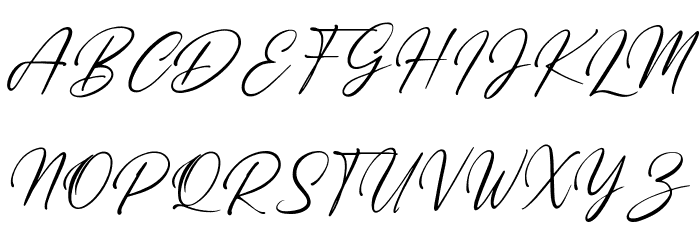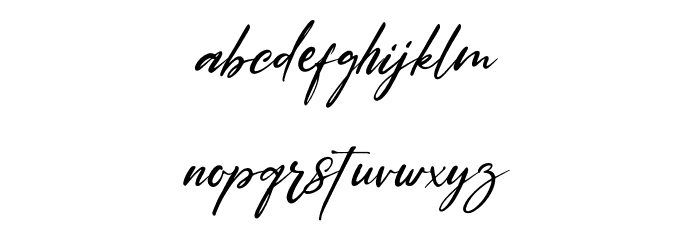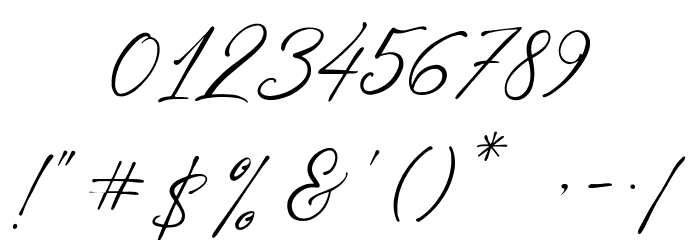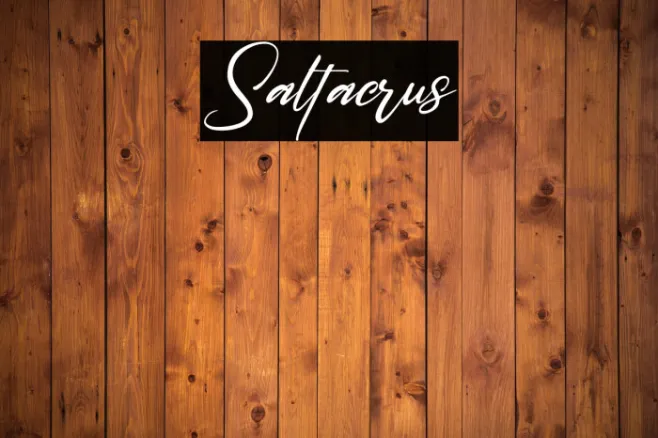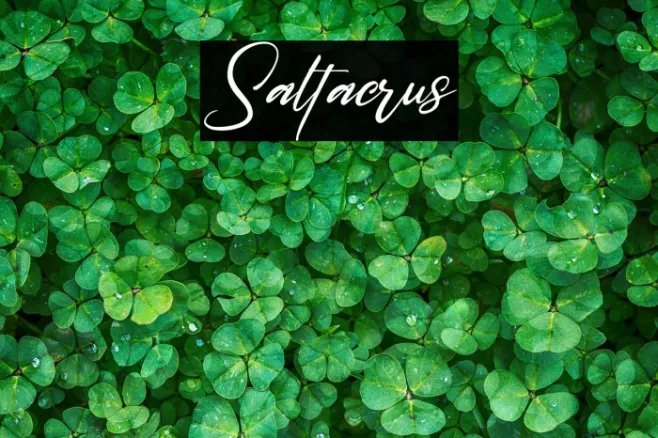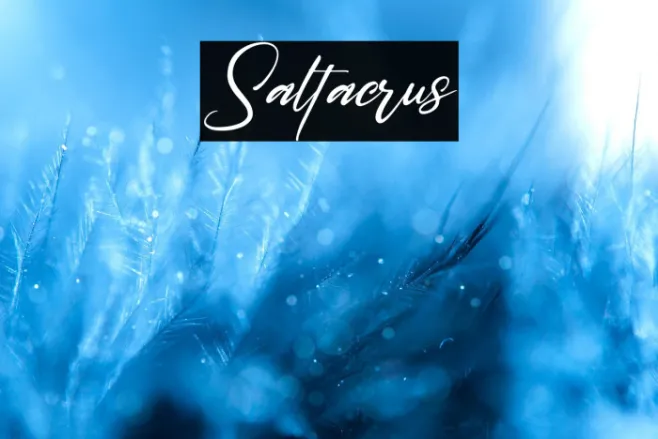
Saltacrus Font
This font features an elegant and flowing script style, characterized by its smooth, cursive strokes and graceful curves. The uppercase letters are tall and slender, with a slight slant that adds a dynamic feel. The lowercase letters maintain a consistent flow, enhancing readability while retaining a sophisticated appearance. The numerals are designed to match the overall aesthetic, with a balanced mix of curves and straight lines. Special characters are seamlessly integrated, maintaining the font's cohesive style. This font exudes a sense of elegance and refinement, making it suitable for a variety of formal and decorative applications.
An elegant, flowing script font with smooth, cursive strokes.
- Proposed Projects: Ideal for wedding invitations, elegant branding, greeting cards, and decorative headings.
- Overall Style: Elegant, Decorative
- Use Case: Headlines, Invitations, Branding